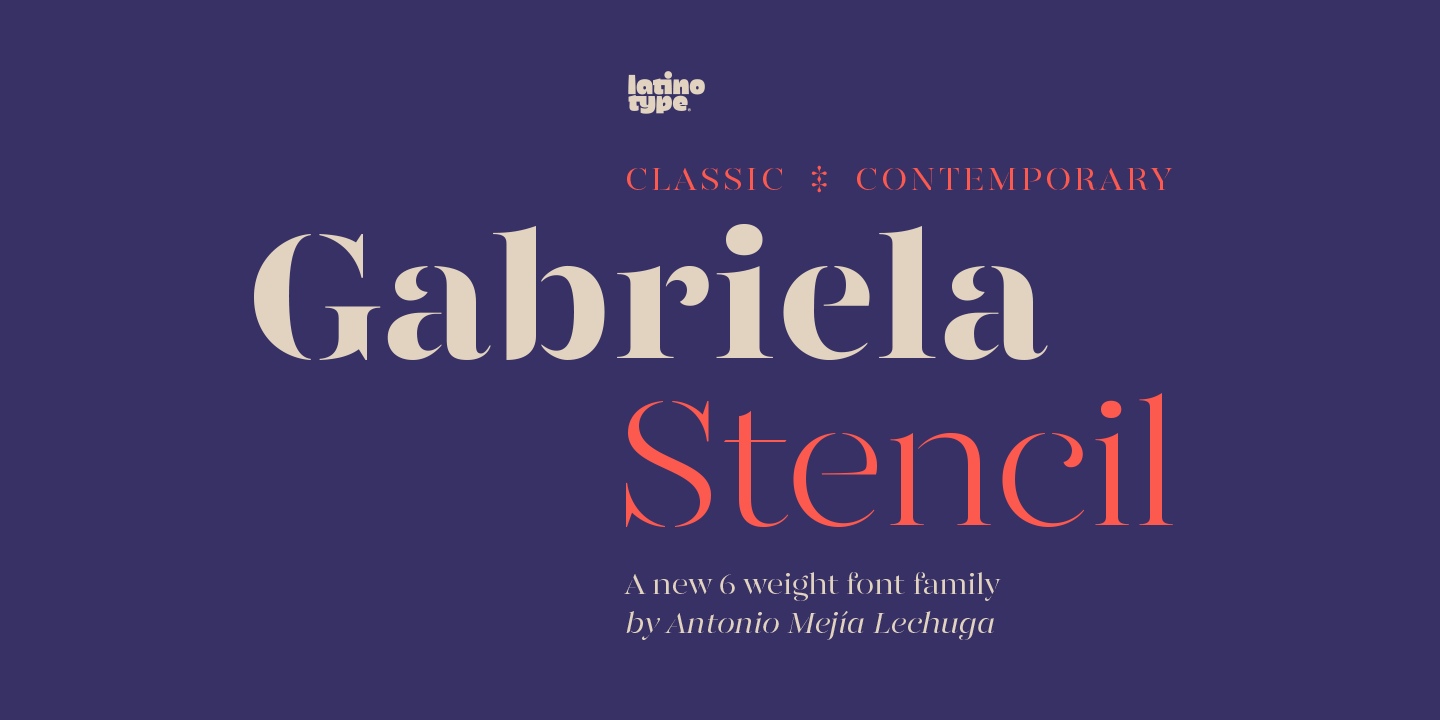
Gabriela Stencil Font
Gabriela Stencil Font is perfect for industrial design projects, military-style branding, warehouse signage systems, shipping container graphics, urban street art applications, tactical equipment labeling, rugged outdoor gear marketing, industrial facility communications, stencil art exhibitions, and authentic utilitarian design materials.
What makes Gabriela Stencil Font so exciting is its powerful embodiment of industrial strength and utilitarian functionality that captures the bold efficiency of stencil lettering and the uncompromising durability of industrial communication through precisely cut typography. This industrially crafted typeface features segmented letterforms with stencil-inspired proportions and functionality-driven character variations that immediately convey strength, practicality, and the transformative power of efficient communication. The font's utilitarian construction and industrial aesthetic create an instant sense of functional reliability and rugged authenticity, making it ideal for projects that need to communicate industrial efficiency, practical durability, and the life-sustaining power of functional design to audiences seeking authentic industrial experiences and meaningful utilitarian connections.
The Gabriela Stencil Font family typically includes multiple industrial weights and stencil styles, often featuring regular through bold variations along with functionally designed italic versions and utility-optimized alternatives. Stencil font collections frequently offer extensive character sets including industrial symbols, utility markers, and functional elements that enhance the authentic utilitarian aesthetic and provide designers with comprehensive tools for creating genuinely industrial and functionally appropriate communications.
The industrial nature of Gabriela Stencil Font makes it particularly effective for targeting demographics that value functionality and durability in their professional and industrial applications. Industrial marketers and facility managers will find this font especially valuable for materials that must establish immediate utilitarian credibility and connect with audiences seeking authentic industrial experiences and meaningful functional communication.
What sets Gabriela Stencil Font apart is its ability to convey industrial strength while maintaining the clarity necessary for effective safety communication and operational efficiency. This balanced characteristic makes it suitable for both heavy industrial applications and tactical contexts where projecting functional competence and maintaining operational clarity must work together harmoniously.
Professional designers recognize that Gabriela Stencil Font brings invaluable industrial credibility to projects across industries including manufacturing, logistics, military contracting, and utilitarian design. Its stencil character and functional appeal make it essential for organizations whose mission centers on industrial efficiency, operational reliability, and creating meaningful connections between functional design and practical problem-solving.
The systematically engineered utilitarian design of Gabriela Stencil Font ensures consistent industrial messaging across all functionality-focused communication applications while honoring the fundamental principles of practical efficiency and operational clarity in stencil typography.